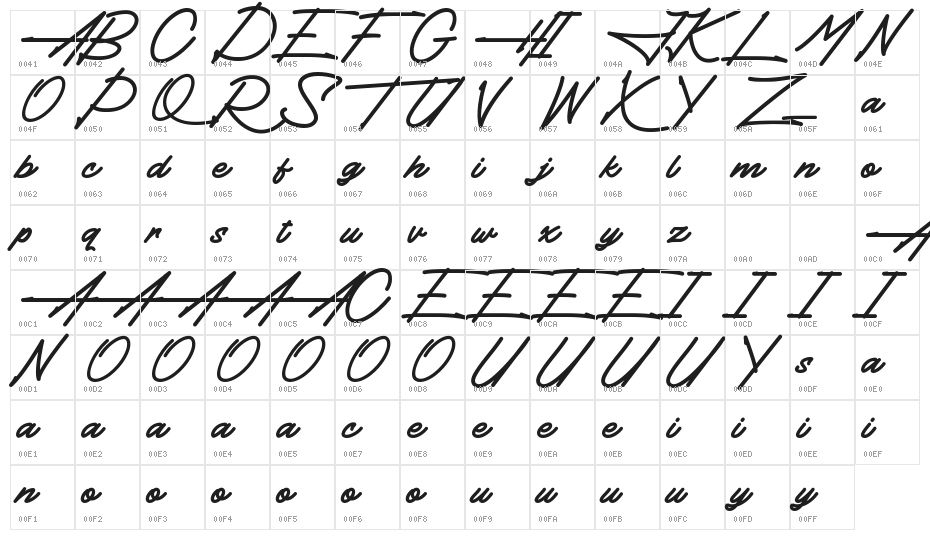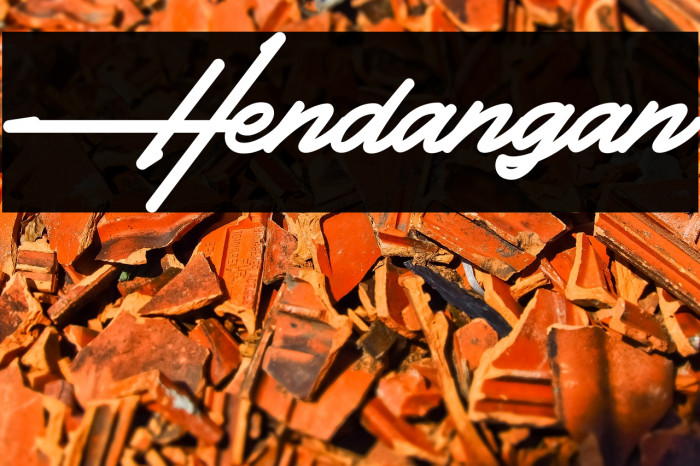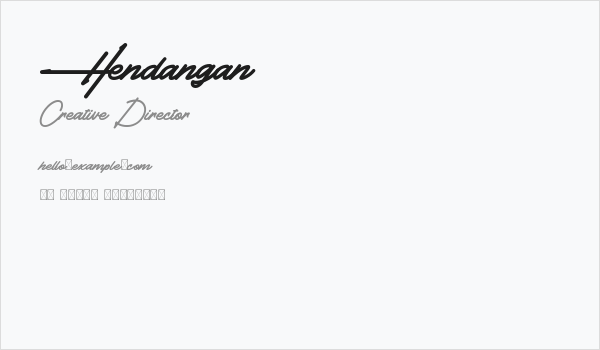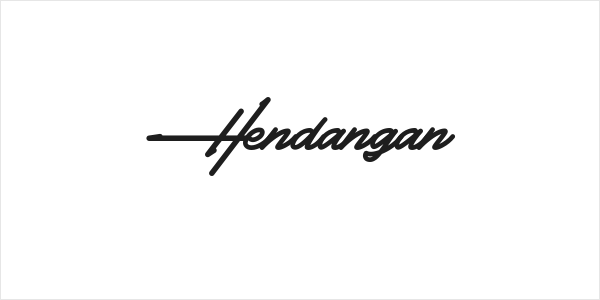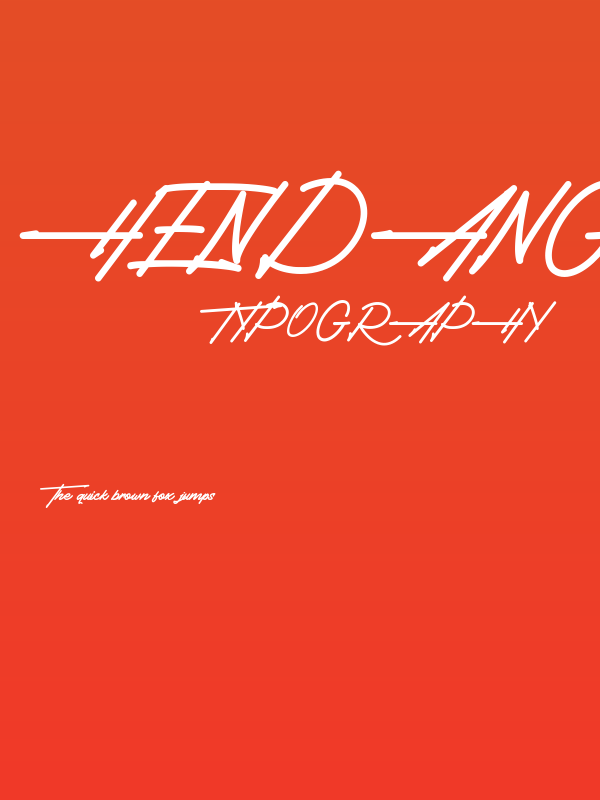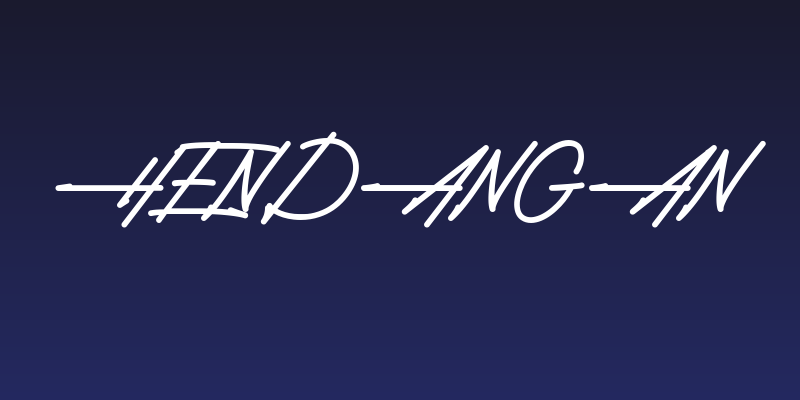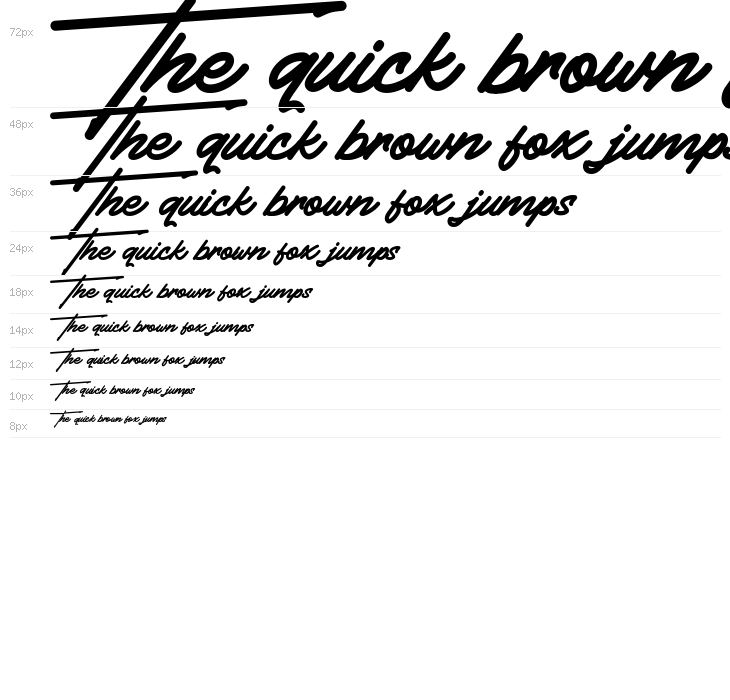
Hendangan Font
Hendangan Description
This font features a dynamic and fluid script style, characterized by its elegant, flowing lines and cursive letterforms. The uppercase letters exhibit a distinctive slant and are interconnected, creating a sense of continuity and movement. The lowercase letters maintain a consistent flow, with smooth curves and rounded edges that enhance readability. The font's overall appearance is both sophisticated and approachable, making it suitable for a variety of design applications. Its unique style is perfect for projects that require a personal touch, such as invitations, greeting cards, or branding materials. The font's versatility is further enhanced by its ability to convey both formal and informal tones, depending on the context in which it is used.